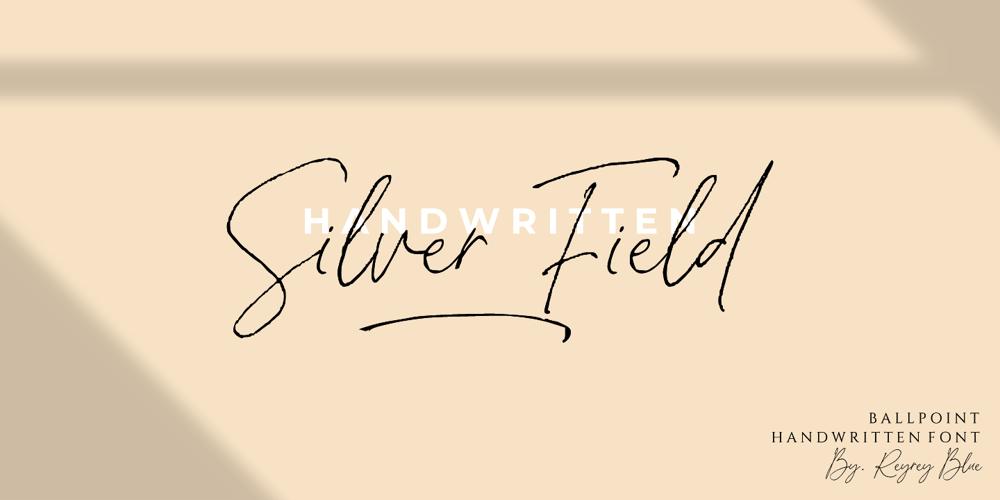
Silver Fields
Silver Fields font
Silver Fields Font Family was designed by Risca Anitawati and published by Reyrey Blue Std. Silver Fields contains 1 styles and family package options. Introducing Silver Fields. An authentic & organic hand-drawn script font with relaxed style and carries the impression of luxury.It looks stunning on wedding invitations, thank you cards, quotes, greeting cards, logos, business cards and every other design which needs a handwritten touch. Fall in love with its incredibly distinct and timeless style and use it to create spectacular designs!Features :· All Uppercase and Lowercase· Number & Symbol· Supported Languages· Alternates and Ligatures